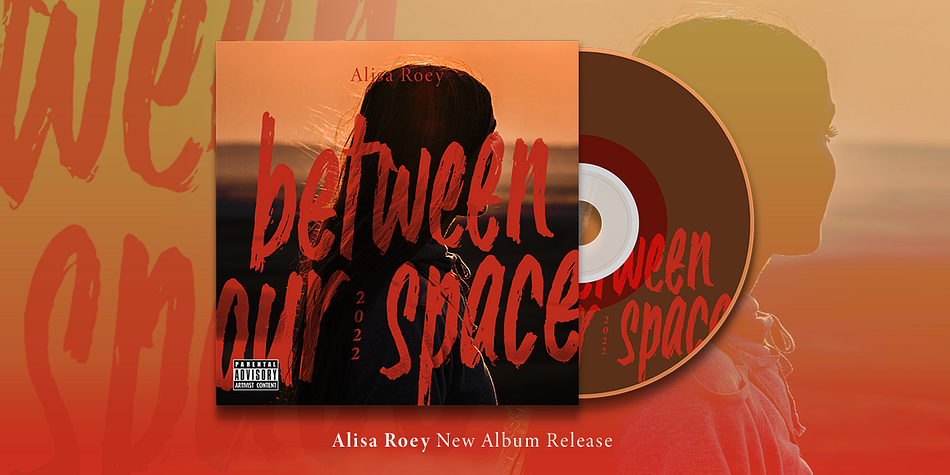
The World Of Storyman
Designed by Hendry Juanda, The World Of Storyman is a brush display font family published by Letterhend Studio.
The World of Storyman is a condensed hand drawn brush font which is purposely made for headline, display or logotype, and signature which need a standout appearing. This font is also suitable to be applied especially in logo, and the other various formal forms such as invitations, labels, logos, magazines, books, greeting / wedding cards, packaging, fashion, make up, stationery, novels, labels or any type of advertising purpose.